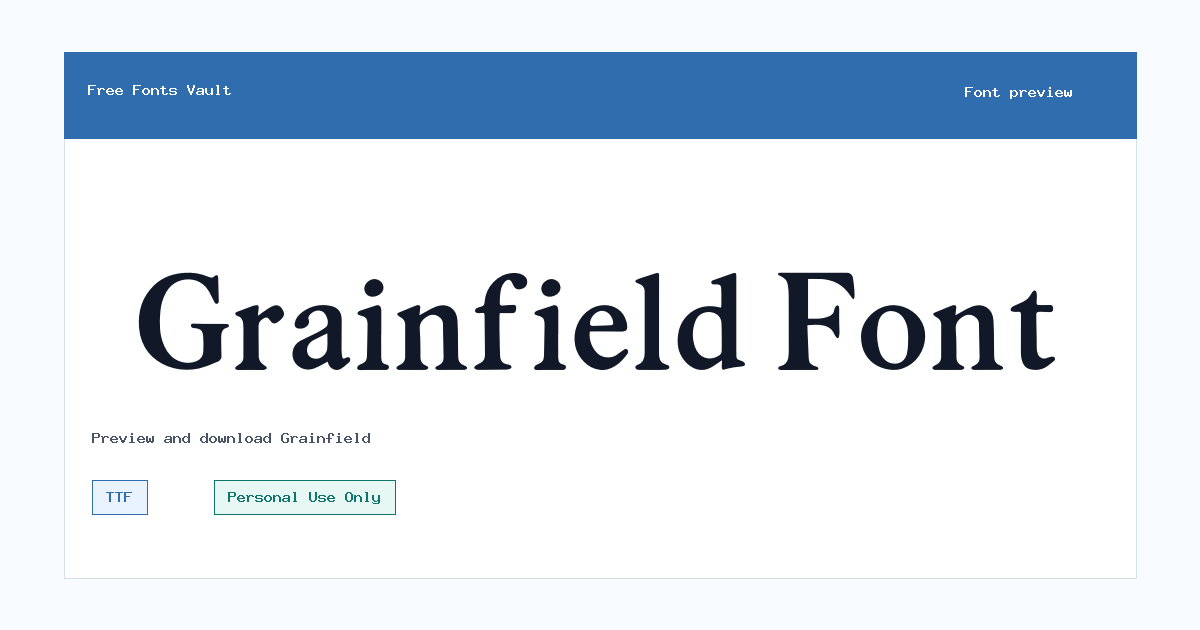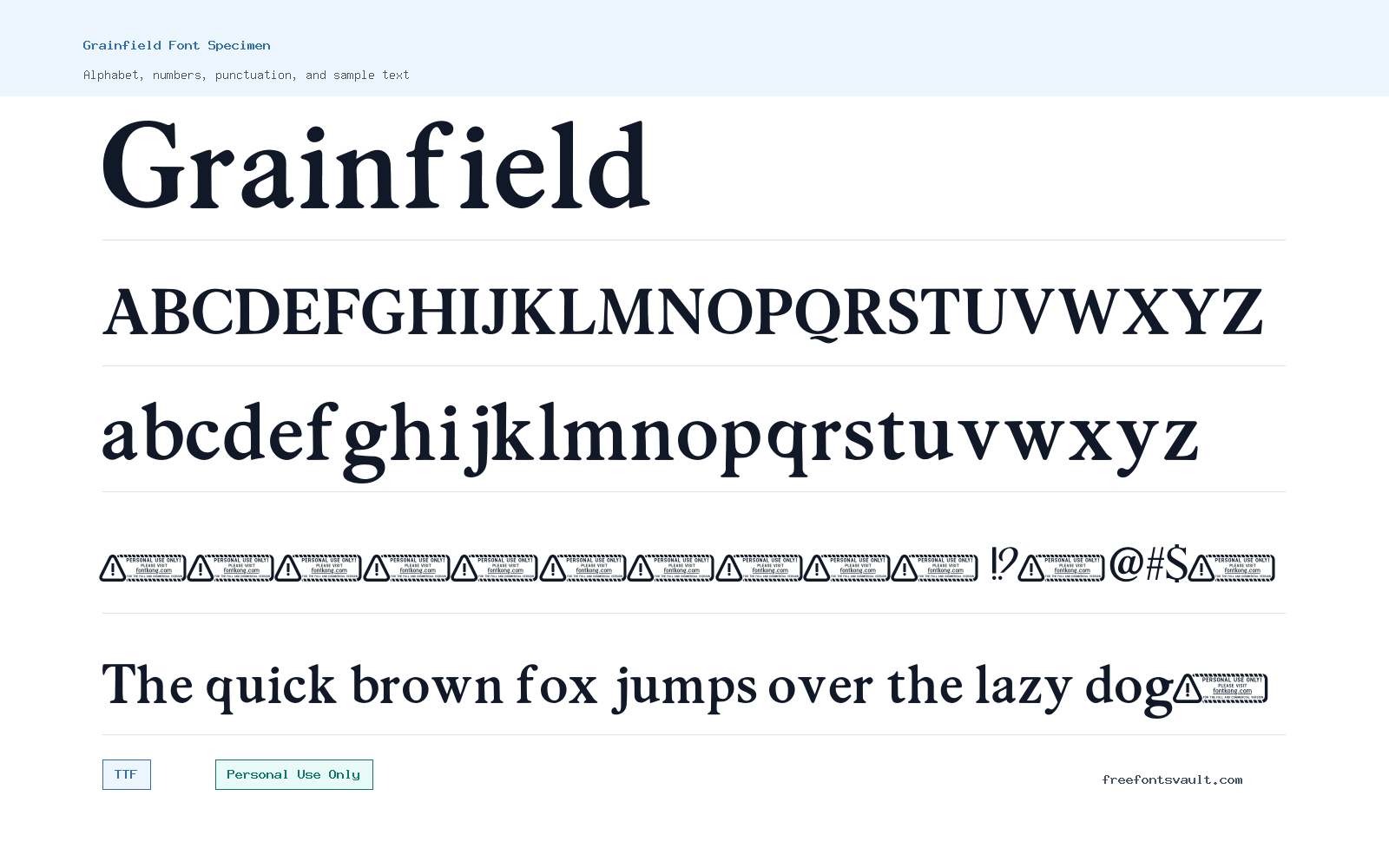
Grainfield
Grainfield is a serif font from Kong Font with a personal-use-only license. It is best approached as a display serif for testing headlines, logo drafts, posters, branding mockups, and short pieces of text where the letter shapes can be seen clearly.
Grainfield sits in the serif category, so it carries the familiar contrast and finishing strokes that make serif lettering feel more formal than a plain sans serif. The name and commercial product listing point to a modern, classy serif direction, but the safest way to judge the font is to try your own words in the preview. Test a brand name, a short heading, a poster line, and a few mixed-case phrases. Serif display fonts can change a lot between all caps, title case, and lowercase, so checking real text is more useful than judging the font from a single sample word.
Use Grainfield where the design needs a refined headline rather than long reading text. It may work well for logo concepts, fashion-style mockups, editorial title treatments, packaging drafts, social graphics, mood boards, invitations, and poster layouts. Keep the text short at first: one to six words is a good range for judging spacing, rhythm, and readability. If you plan to use it in a logo or client presentation, pay close attention to how the letters connect visually, how the spacing looks around narrow characters, and whether the style still holds up at small sizes.
For pairing, Grainfield will usually be easiest to use with a quiet sans serif for supporting copy. Let Grainfield handle the main name, title, or short phrase, then use a neutral sans serif for body text, buttons, captions, product details, or navigation. If you pair it with another decorative font, the layout can quickly become busy. A restrained second typeface will help the serif details stand out without making the design feel crowded.
- Serif display style suited to short, prominent text rather than dense paragraphs.
- Logo drafts and brand-name mockups
- Poster titles and editorial-style headlines
- Fashion, boutique, or packaging concept visuals
- Invitation headings and social media quote graphics
- Website hero mockups where the font is only used for short display text
Start by previewing your exact project text. Check uppercase, title case, numbers, punctuation, and any accented characters you need. For logo work, test the font in black and white first before adding color or effects. For posters and web mockups, give the letters enough spacing and contrast so the serif details stay readable. Pair it with a simple sans serif for body copy and interface text. If the design is commercial, resolve the license before sharing or publishing the work.
Grainfield is listed as a serif font. It is best tested as a display serif for short headings, logo drafts, posters, and visual mockups.
It is safer to use Grainfield for short display text first. For long paragraphs, pair it with a simple, readable text font and keep Grainfield for titles or emphasis.